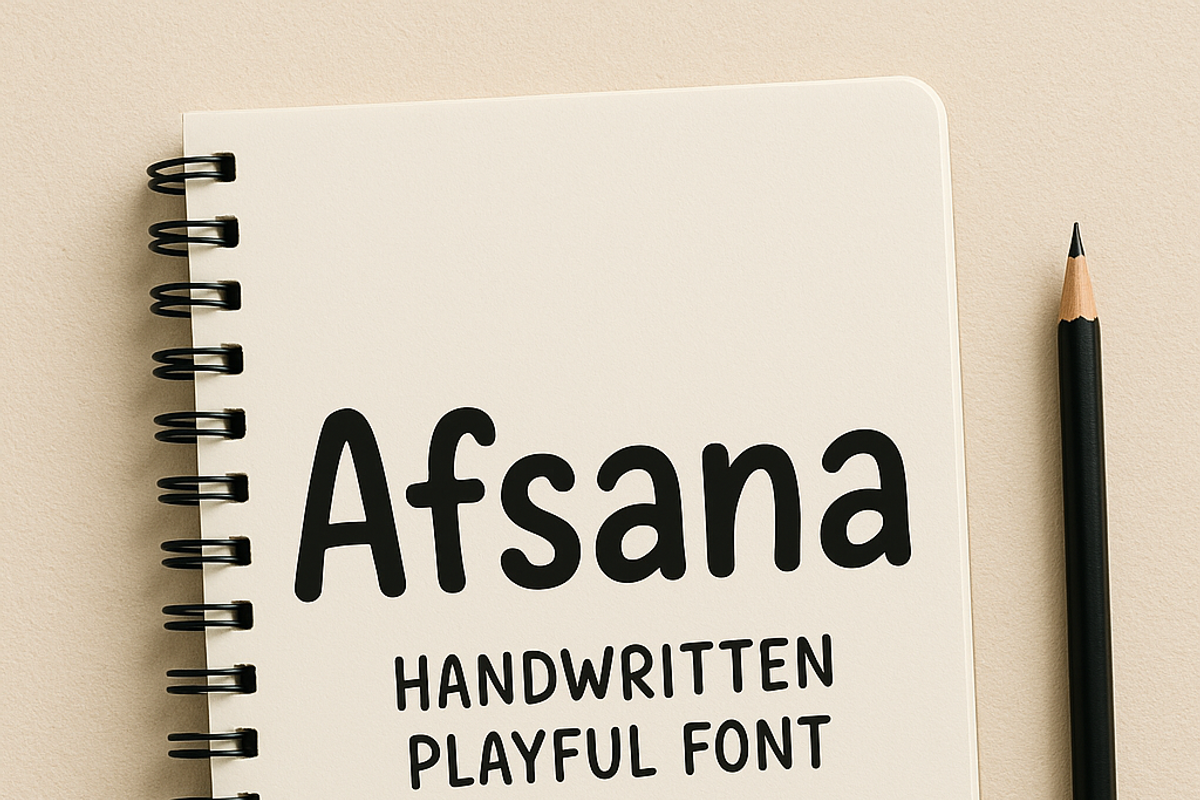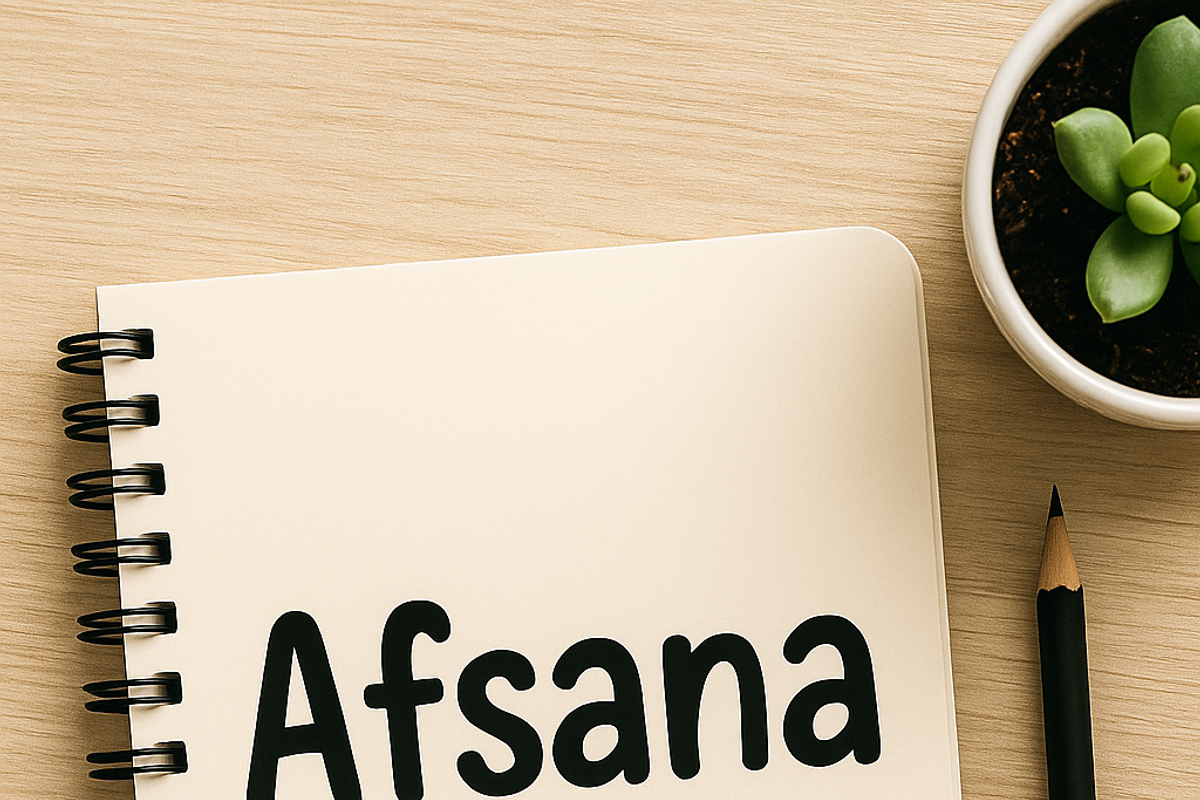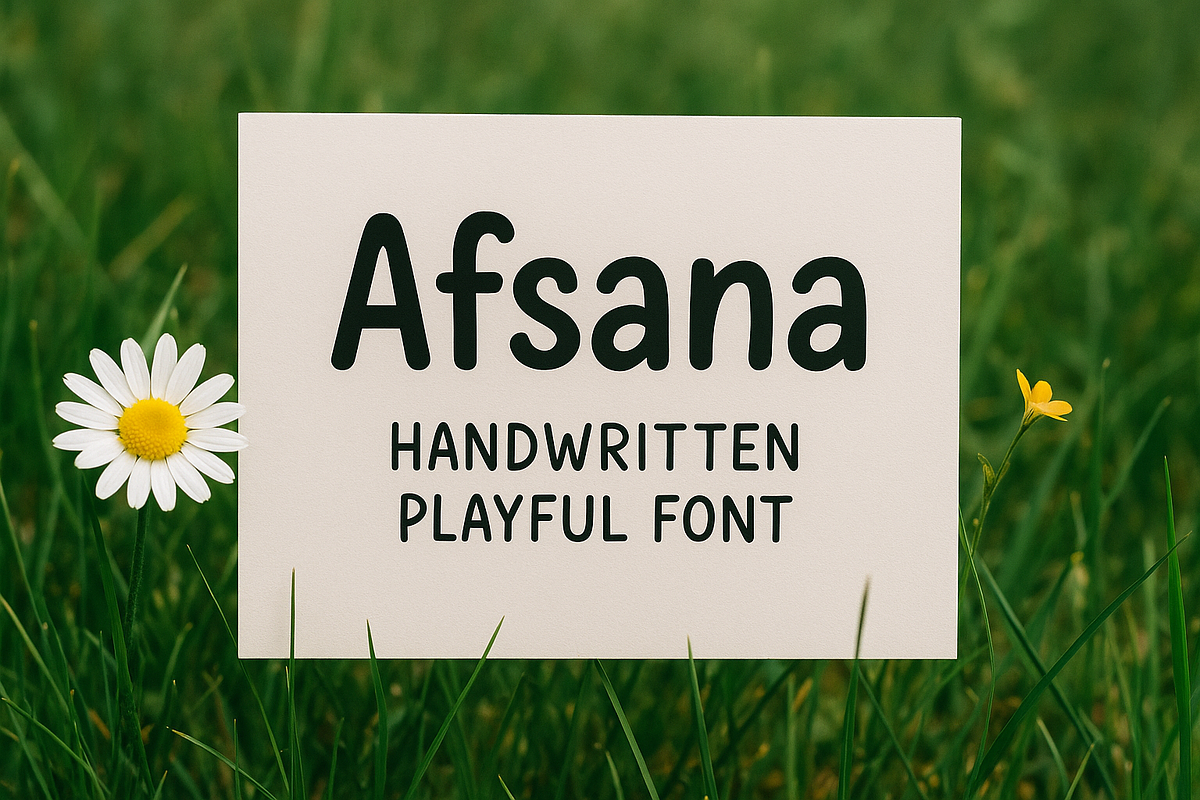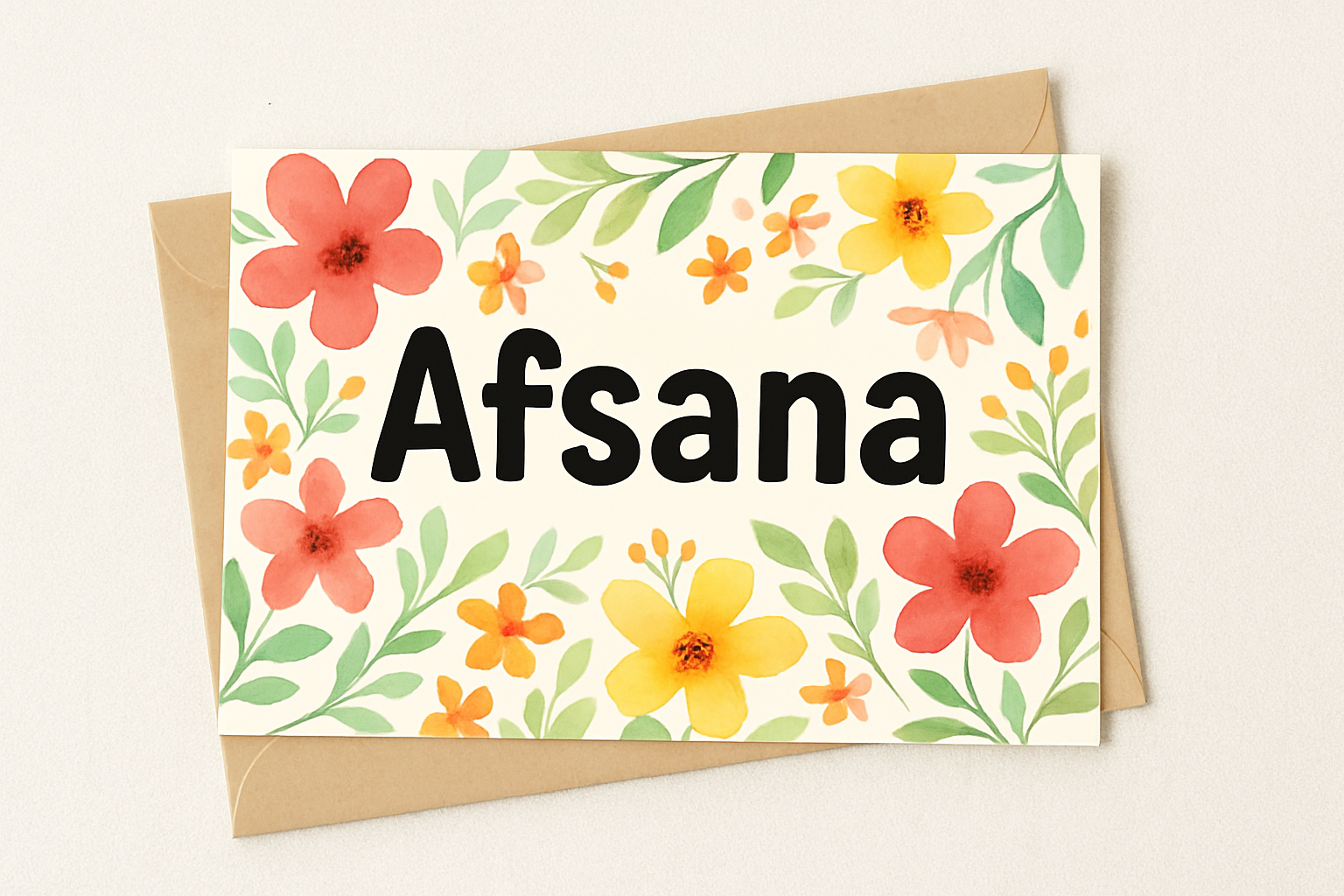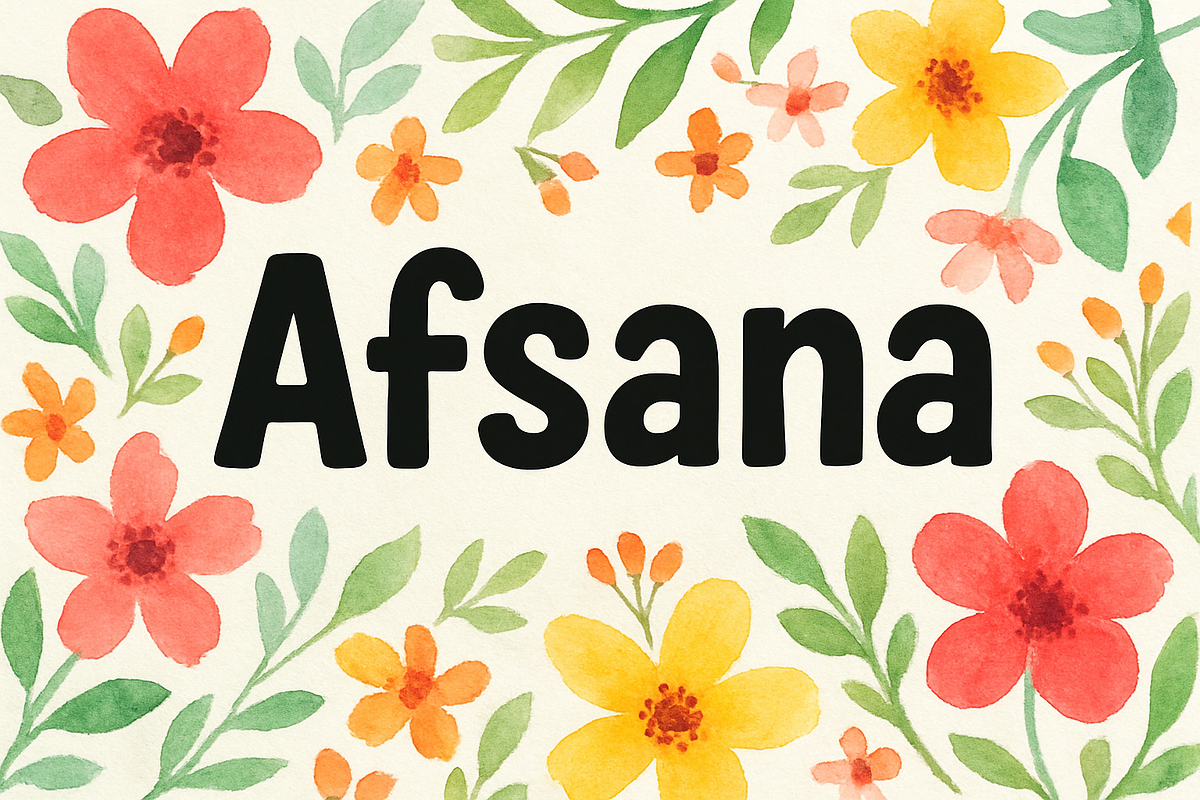
Afsana – Handwritten Playful Font
*Afsana is a casual, fun handwritten font featuring a bold, marker-style design—perfect for creative projects like posters, greeting cards, logos, social media graphics, stationery, and branding.**
Playful and bold handwritten style
Well-kerned letterforms for smooth readability
Ideal for both print and digital projects